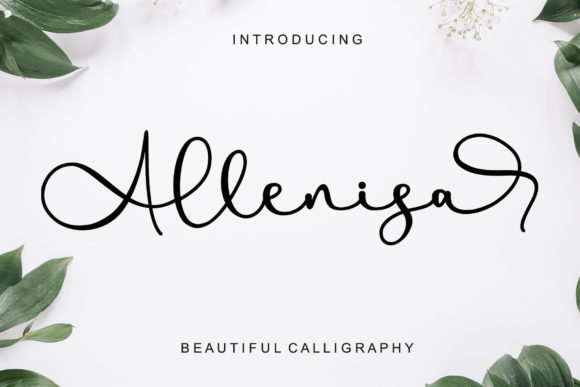
The Elusive Perfect Font: My Encounter with Allenisa
Ah, the quest for the perfect font. We’ve all been there – scrolling through endless font libraries, trying to find that one font that screams sophistication and elegance. I recall working on a project for a high-end client, demanding a font that exuded luxury and refinement. After hours of searching, I stumbled upon Allenisa, a chic script font that instantly caught my attention. In this article, I’ll share my experience with Allenisa, its features, and how to make the most of this beautiful font.
An Honest Review of Allenisa
• ✨ Elegant and refined script style, perfect for luxury brands and high-end projects
• 💫 Stylish alternates and ligatures for added creativity and versatility
• 🎨 Highly customizable, allowing for a unique look and feel
While Allenisa is an exceptional font, there are a few minor limitations to consider:
• ⚠️ Some users may find the font a bit challenging to read in smaller sizes, due to its script nature
• 🤔 Limited use of bold or heavy weights, which may not be suitable for all design projects
The Story Behind Allenisa
Allenisa was designed with the intention of creating a font that embodies sophistication and elegance. The designer aimed to craft a script font that would be both refined and stylish, making it perfect for luxury brands, high-end projects, and creative endeavors. While the actual design process remains a mystery, it’s clear that Allenisa has become a beloved font among designers and crafters.
Q: What is PUA encoding, and how does it benefit Allenisa users?
PUA (Private Use Area) encoding allows font designers to include additional glyphs and swashes, making it easier for users to access these features. In the case of Allenisa, PUA encoding enables users to easily access the font’s stylish alternates and ligatures.
Q: How do I access the glyphs and swashes in Allenisa?
Accessing glyphs and swashes in Allenisa depends on the design platform you’re using. Generally, you can access these features through the font’s OpenType settings or by using a character map.